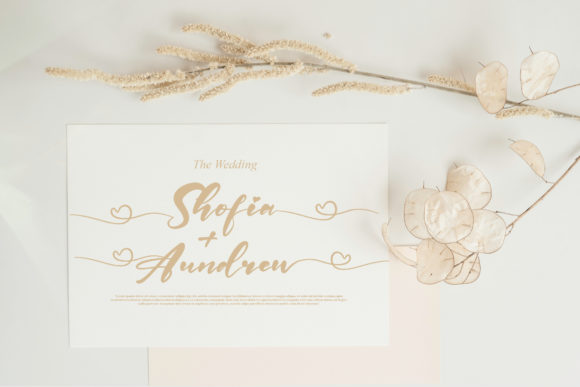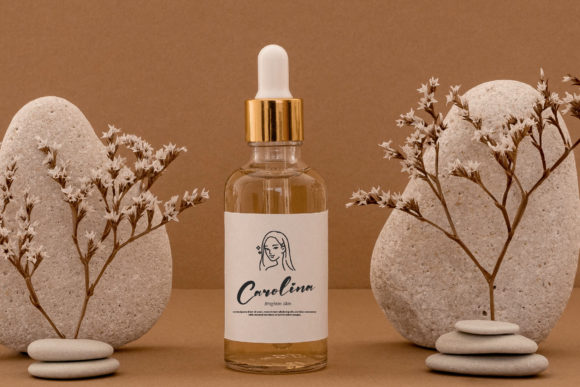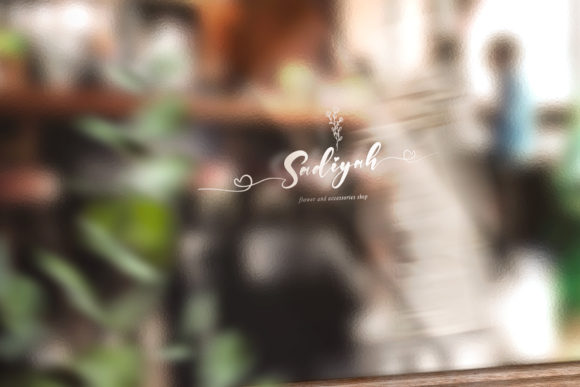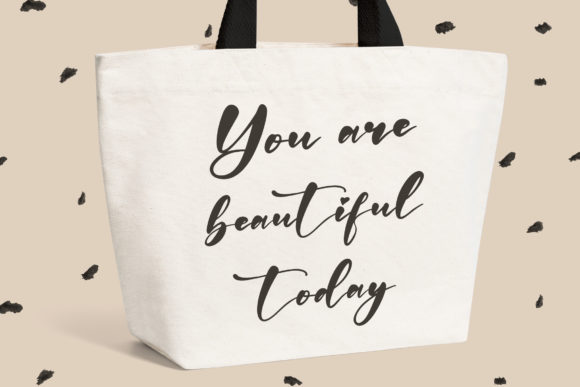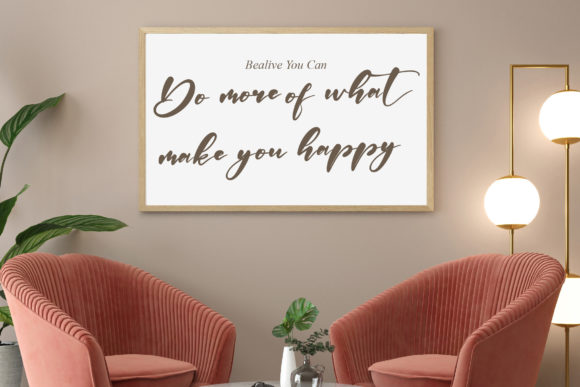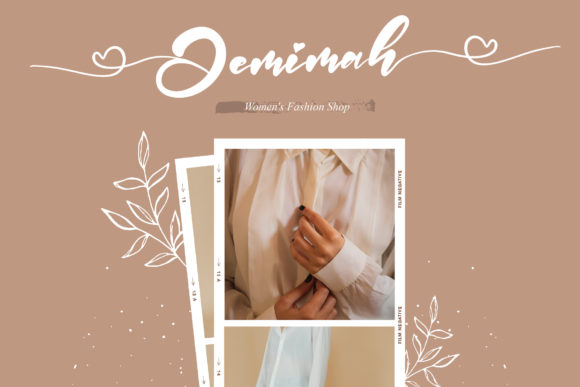
The Perfect Brushstroke: Discovering Belinta Cinta Font
Have you ever been struck by a moment of pure creative inspiration, where everything seems to fall into place? For designers, this moment often comes when they stumble upon the perfect font to match their vision. For me, that moment arrived when I discovered the Belinta Cinta Font. This exquisite handwritten font is more than just a pretty face – it’s a masterfully designed tool that can elevate any design project.
With its classy calligraphic influences and contemporary feel, Belinta Cinta Font is the perfect choice for designers looking to add a touch of sophistication to their work. The font’s PUA encoding allows for seamless access to its amazing glyphs and ligatures, making it a valuable asset for any designer looking to take their work to the next level.
Key Features of Belinta Cinta Font
- Font Family: Belinta Cinta Font is a beautiful, elegant script font designed to add a touch of romance and sophistication to any design project.
- Size: This font family includes a range of weights and styles, from Light to Bold, allowing designers to achieve the perfect level of emphasis and expression.
- Unique Characteristics: Belinta Cinta Font features a unique, flowing script style with intricate details and subtle flair, making it perfect for creating romantic and elegant designs.
- Resolution: Designed to work at high resolutions, Belinta Cinta Font looks stunning on both digital and print materials, from business cards to wedding invitations.
Designer Review: Belinta Cinta Font
Overall, I’m quite impressed with the Belinta Cinta Font, especially when it comes to its unique and playful style. ✨ The font’s combination of modern and vintage elements creates a visually appealing effect that’s sure to capture attention. I love how the font’s curves and lines work together to form a cohesive design that’s both elegant and fun.
One of the standout features of Belinta Cinta Font is its versatility. ✨ It’s perfect for a wide range of applications, from branding and advertising to digital and print media. The font’s flexibility makes it an excellent choice for designers who want to create eye-catching and memorable designs.
- ⚠️ The font may not be suitable for all types of text, particularly for large blocks of text where readability can become an issue.
- ⚠️ Some users may find the font’s bold and playful style to be too overwhelming or distracting.
Overall, I think Belinta Cinta Font is a solid choice for designers who want to add some personality to their projects. While it may have some limitations, its unique style and versatility make it a great addition to any design toolkit.
Belinta Cinta Font is ideal for:
- Creative and artistic projects.
- Designing unique and eye-catching graphics.
For best results, pair the Belinta Cinta Font with bold and vibrant colors to create a striking visual effect.